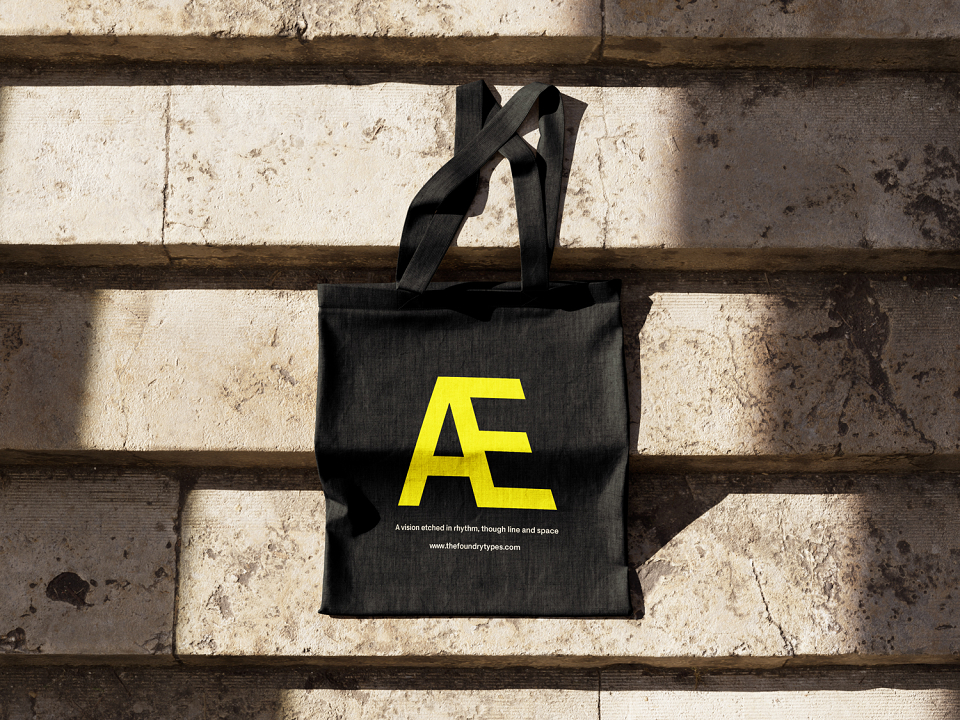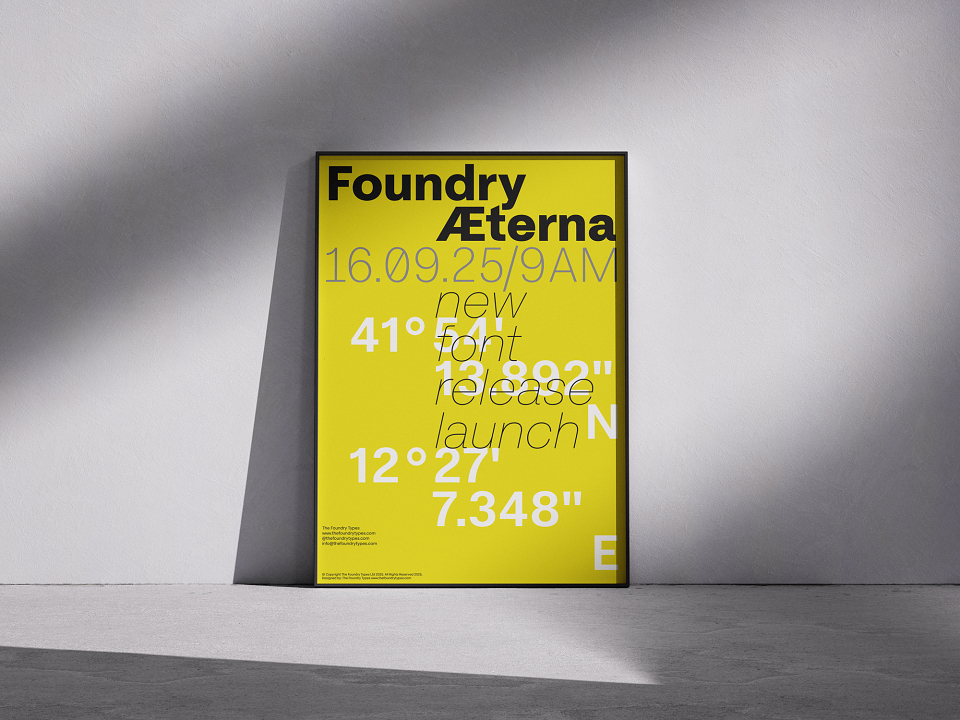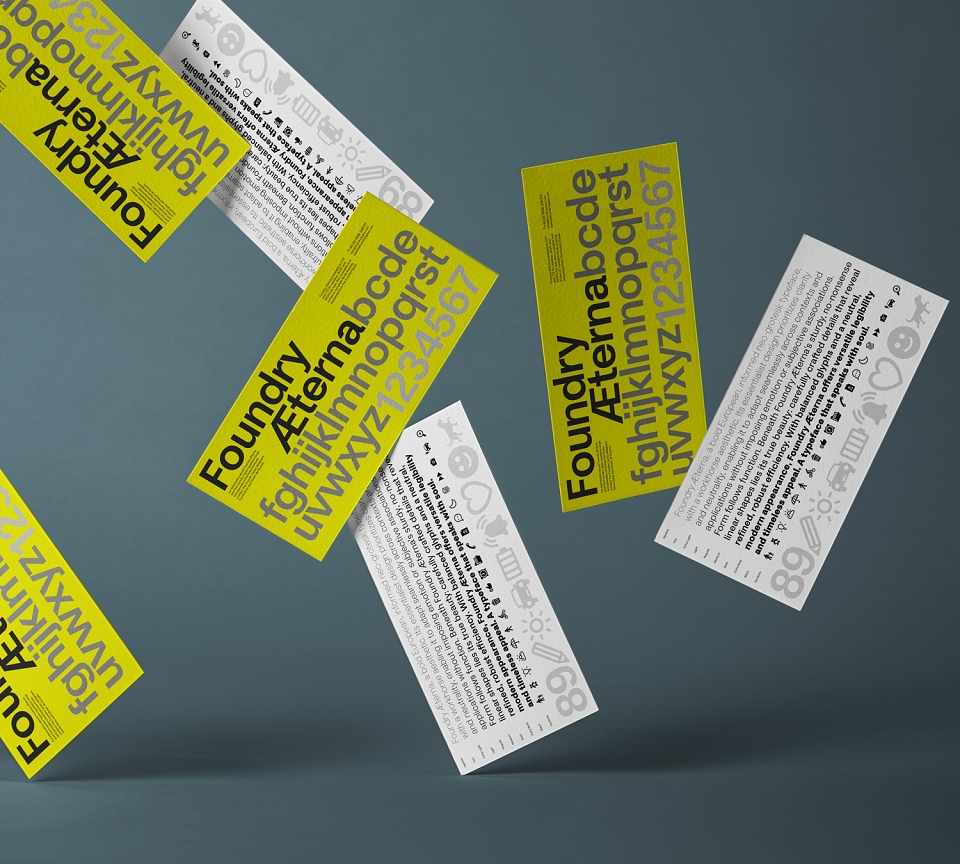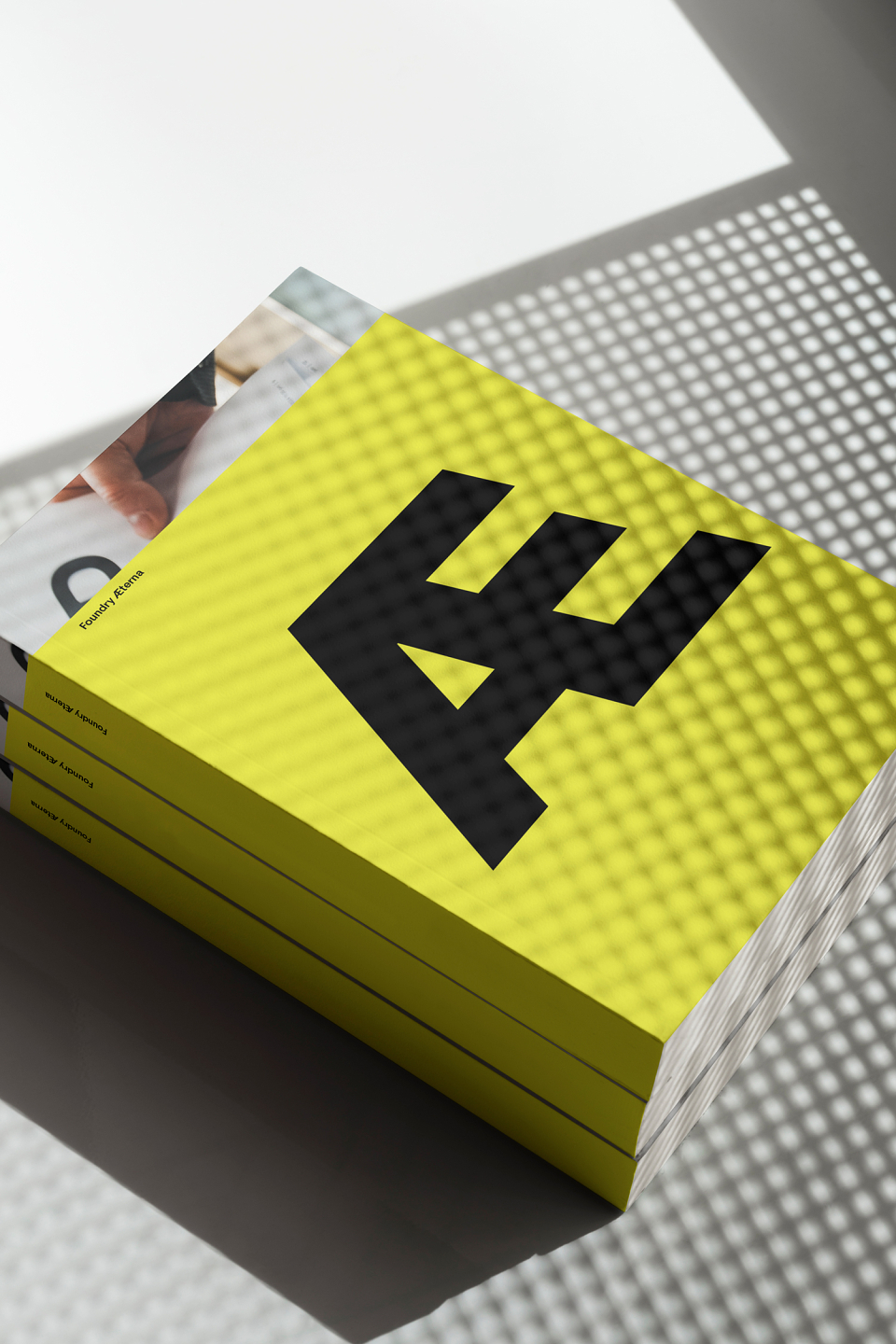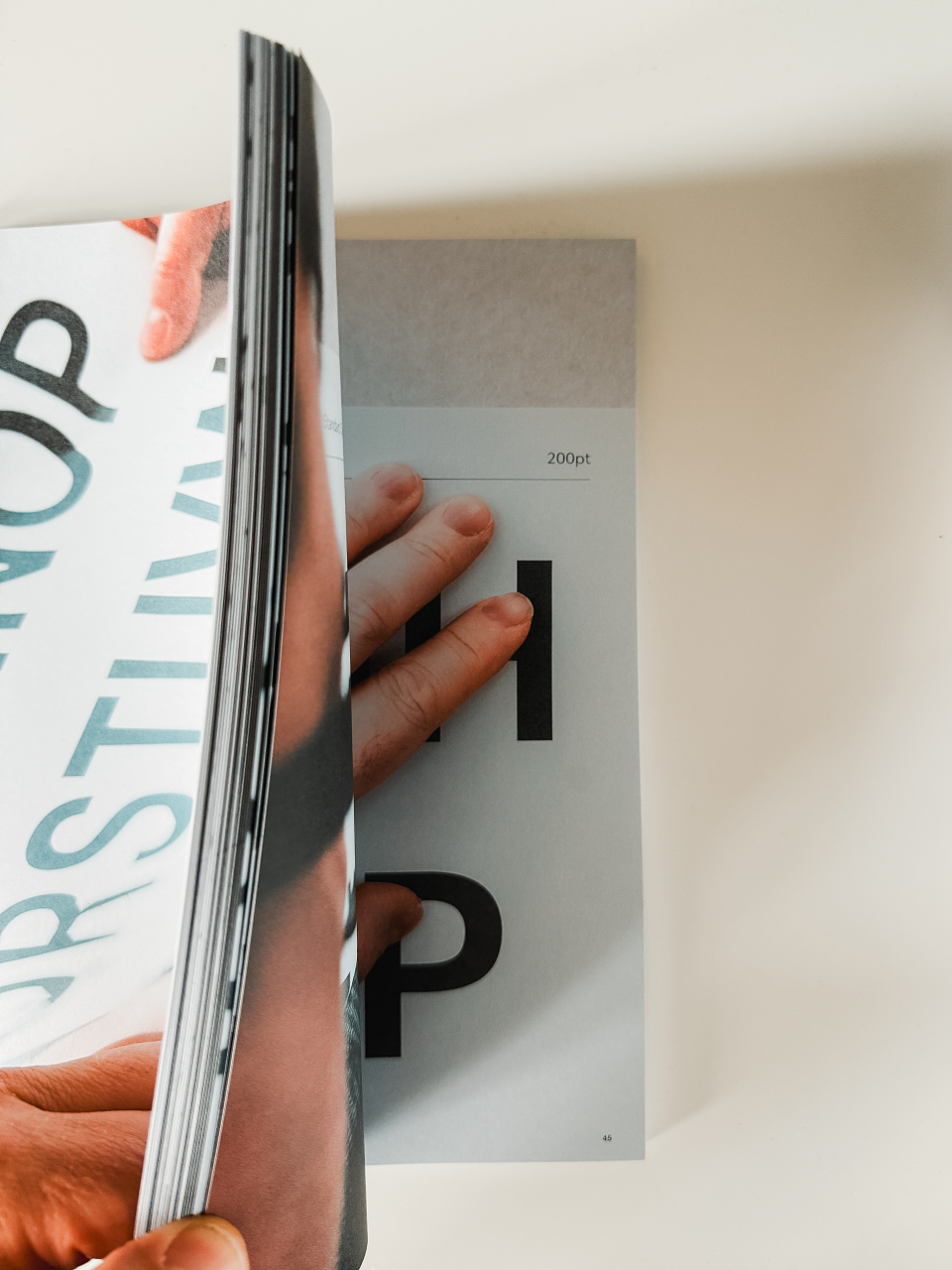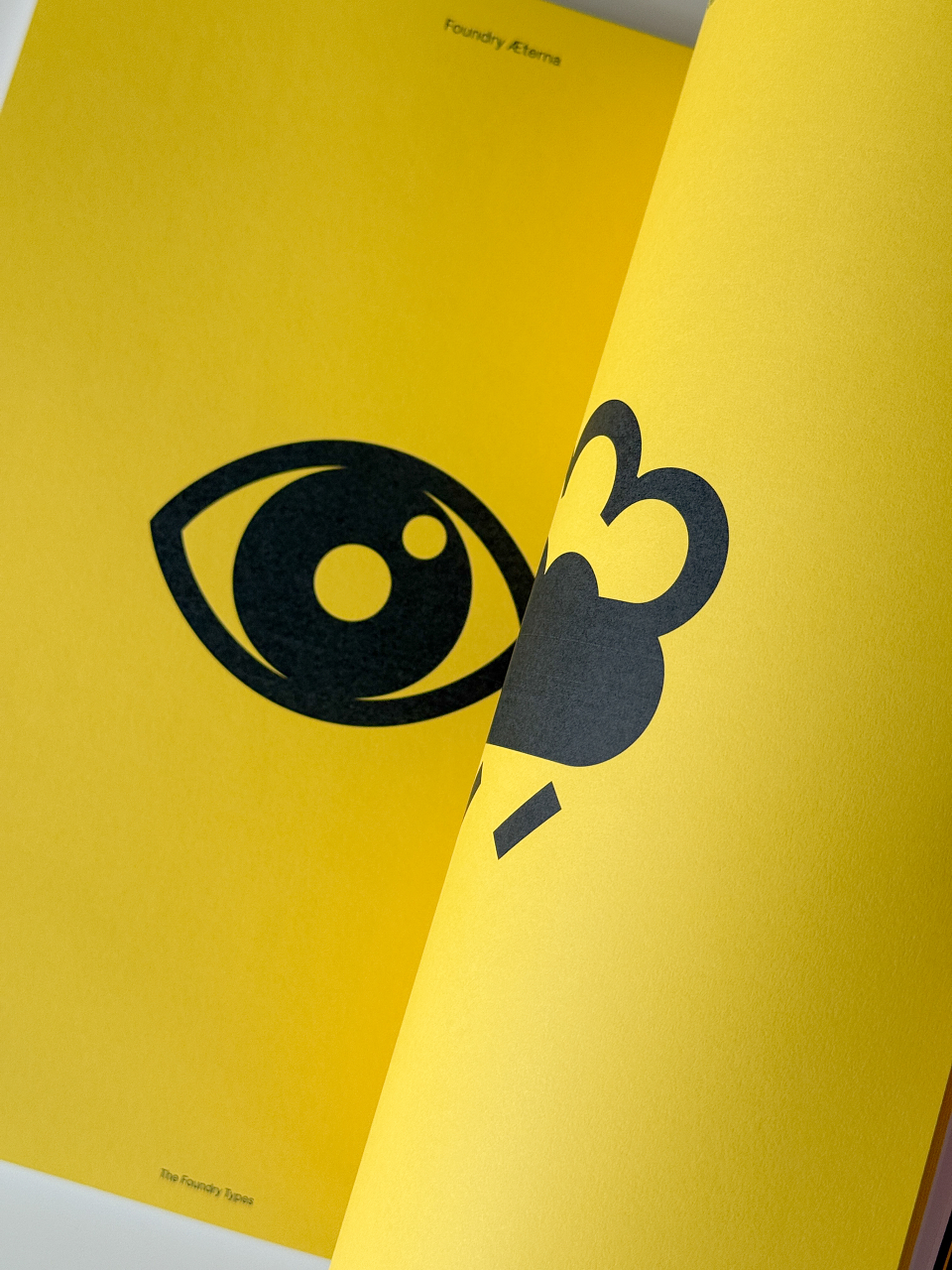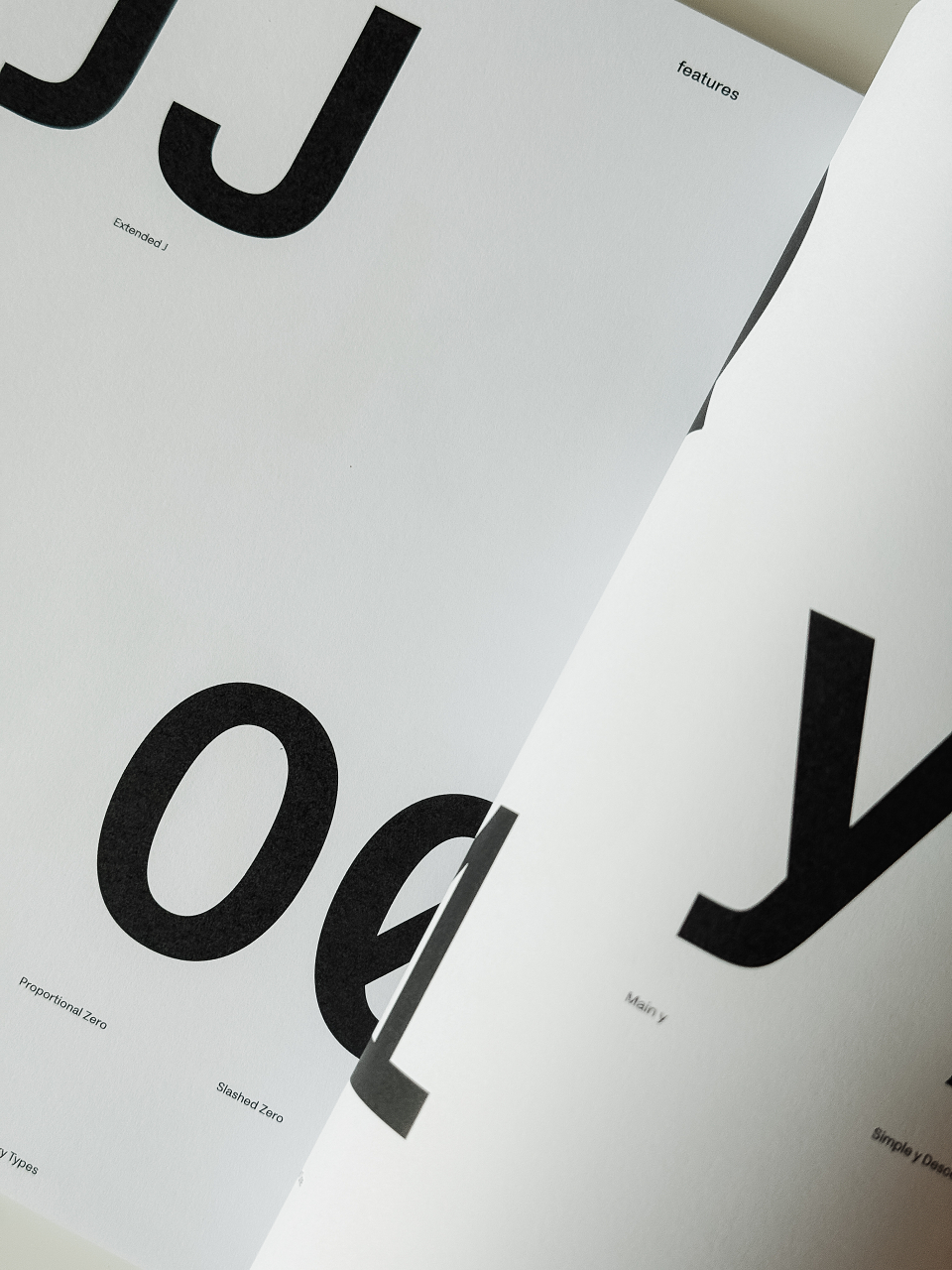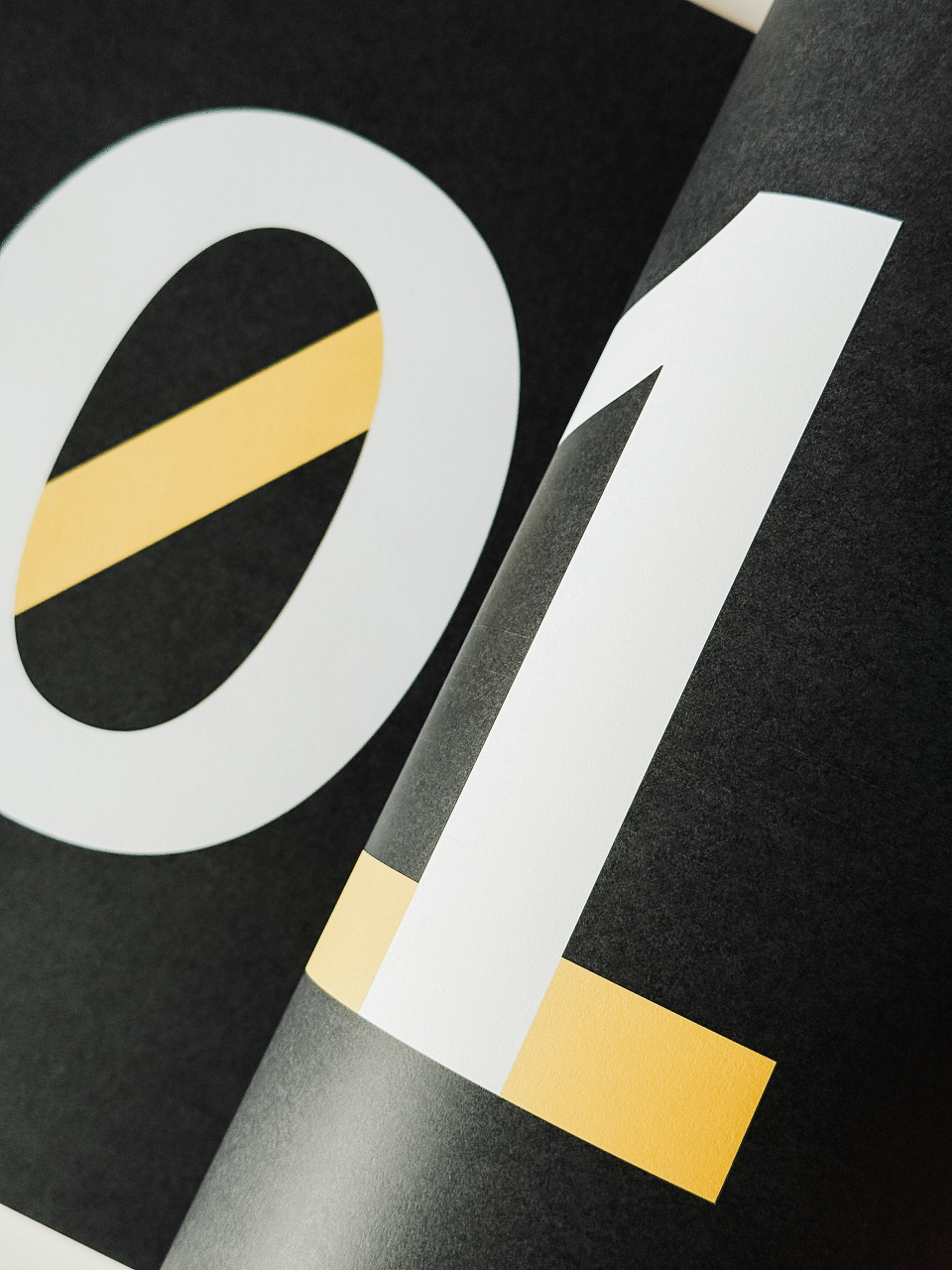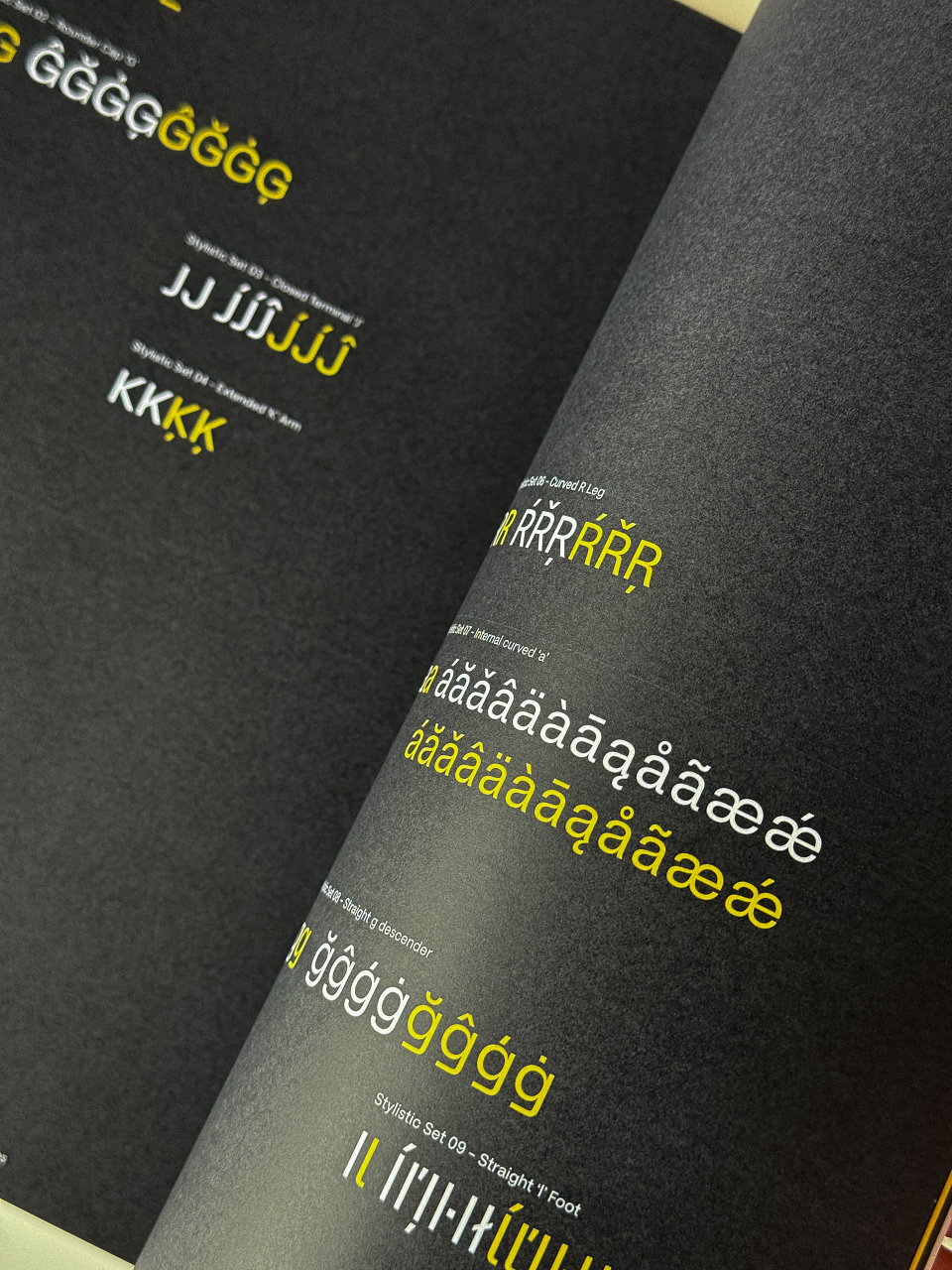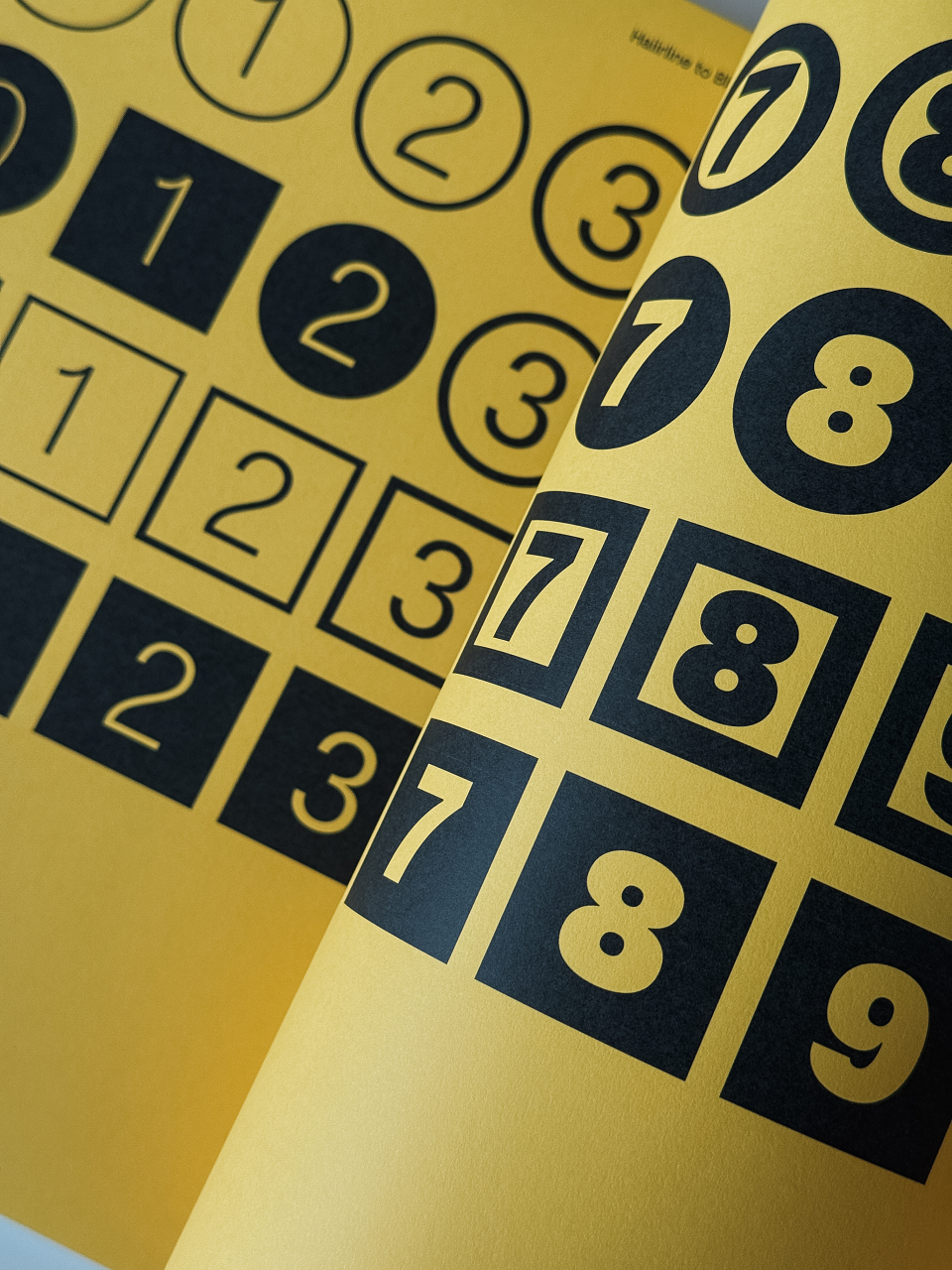
With the persistent reliance on ubiquitous, overused Neo-Grotesk typefaces in visual culture, a deeper issue comes into focus, one of complacency, sameness and creative stagnation. What began as a pursuit of clarity and neutrality has calcified into default thinking, where type design no longer challenges or contributes, but merely fills space. In response to this same-old cycle, Foundry Aeterna was conceived not as another revival or facsimile, but as a decisive, thoughtful interpretation of how a Neo-Grotesk should be for modern typography, in the new digital age. Grounded in the lineage of modernist foundations and minimalist principles, yet unafraid to speak with distinct tone, rhythm and detail. Foundry Æterna distils over a century of typographic nuance into a versatile, expansive family tailored to communicate with purpose, precision and presence.
Foundry Æterna, a bold European, informed Neo-Grotesk typeface, with a workhorse aesthetic. Its essentialist design prioritizes clarity and neutrality, enabling it to adapt seamlessly across contexts and applications without imposing emotion or subjective associations. Form follows function. Beneath Foundry Æterna’s sturdy, no-nonsense linear shapes lies its true beauty, carefully crafted details that reveal refined, robust efficiency. With balanced glyphs and a neutral, modern appearance, Foundry Æterna offers versatile legibility and timeless appeal.
What is eternity? Scientists and philosophers have pondered that question since time immemorial. Religious leaders have promised it. Artists, writers and musicians have tried to interpret it. Yet there are no answers, it remains the eternal question. From the Latin word for eternal, Foundry Æterna finds its name.
Harmonious utilitarian letterforms, a large x-height relative to its capitals and compact spacing, imbues a calm readable experience, particularly in smaller text sizes. Closed terminals and a generally rounder Neo-Grotesk letterform promotes a spacious internal structure, without sacrificing legibility. A distinctive hallmark of Foundry Æterna is the subtle, slightly extended terminals ‘a, c, g and s’ and horizontal shaping to the ‘a, f, j, t and y’, details that quietly express its contemporary character.
Accessible legibility features include: a distinctive, wider ‘J’, an extended ‘K’ arm, ‘M’s’ centre Vertex raised and an extended through ‘Q’ tail in the capitals. The lowercase features consist of: an ‘a’ with a serpentine internal shape with a flared stem stroke, a double storied ‘g’ and an alternative straight descender stroke, a lowercase ‘l’ with a horizontal foot (for enhanced legibility), the ‘t’ through bar is curved and a straight ‘y’ descender.
Foundry Æterna includes thoughtful alternate forms to enhance clarity and character recognition. These include a slashed zero for disambiguation, a figure one with a baseline bar in the tabular set and three distinct ampersand styles: one featuring a straight diagonal, one with a horizontal terminal and another based on the Latin word ‘et’. Each of these elements is designed to support optimum legibility across various contexts.
Alongside the typeface, Foundry Æterna includes a collection of over 290 meticulously designed icons and symbols. Created to support a broad range of applications: from transport and user interfaces to information systems and wayfinding. The Symbol set is built on the typeface’s capital height, aligned to the baseline and centrally spaced for seamless integration and ease of use.
It is not merely a typeface, but a feeling spoken through form, a vision etched in rhythm, through line and space, the essence of visual harmony. Foundry Aeterna calls designers to go beyond the ordinary, inviting type to become more than a tool, a voice that speaks with soul.
David Quay, (Director/Designer – The Foundry Types)
“Foundry Æterna is a Neo-Grotesk crafted for timeless clarity, balancing modernist and minimalist principles with humanist nuance. Designed for versatility, it thrives in both digital and print, offering designers a modern classic that feels enduring yet distinctly contemporary”.
David Bennett, (Creative Director – OPX)
“It was great to see The Foundry Types create a contemporary sans serif typeface full of character. The range of weights is impressive, and the inclusion of symbols adds a smart extra layer. We’re currently working together on a printed behind the scenes book that reveals the sketches and testing process it’s a joy to work with.”
Stuart de Rozario, (Director/Designer – The Foundry Types)
“OPX saw the development of Foundry Æterna at an early stage and brought their unique dynamism and energy to create a book that showcases the journey of designing a typeface. It’s a visual documentation of pencil sketches, digital drawing, on-screen development and font mastering. By opening a window into its processes, this book superbly visualises the decisions, experiments and iterations that shaped its final form”.
Foundry Æterna comes in 19 styles, consisting of: Hairline, Thin, ExtraLight, Light, Regular, Medium, Bold, ExtraBold, Black and the Symbol set. Each Roman weight comes with their accompanying Italics. The character set includes 20 Stylistic alternative features, with a set of positive and negative circled and squared numbers, a Bitcoin symbol, arrows, extended ligatures including a ‘www’ ligature.
Introducing Foundry Æterna, a new expansive Neo-Grotesk typeface